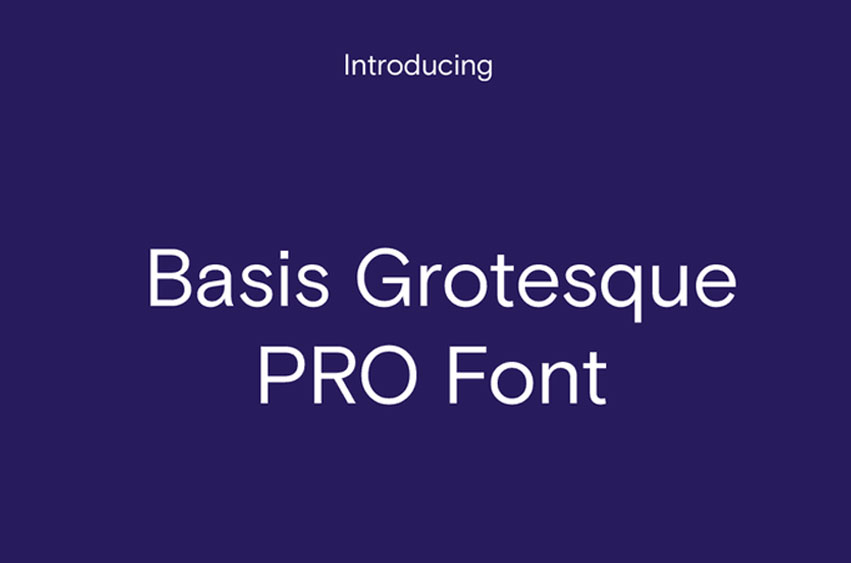
Basis Grotesque Pro Font
Basis Grotesque Pro Font was designed by Anthony Sheret and Edd Harrington for Colophon Foundry, the design firm where they both work. Originally created for the photography magazine Hotshoe in 2012 but then subsequently expanded and released as commercial fonts in 2015.
Basis Grotesque draws on classic grotesques that have been digitized for modern use. It has its own unique character and balance, but in the end it is just a matter of commercial practicality. Available in five weights with matching italics as well as in its monospaced version.